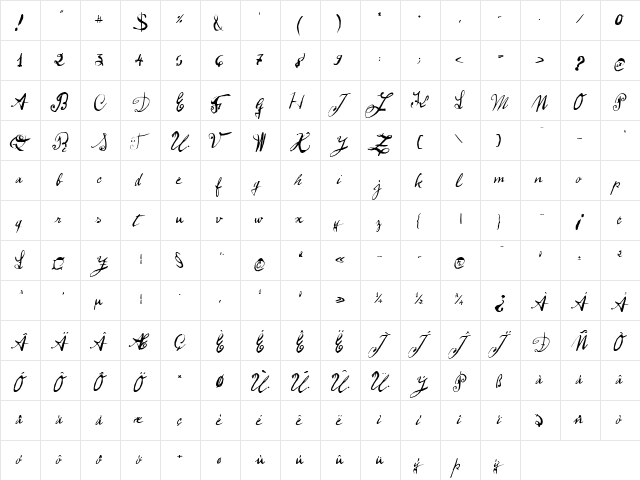
Pepe-Regular Regular
Design Context for Pepe-Regular Typeface
Pepe-Regular is a composed and adaptable typeface that performs quietly and consistently across a wide range of design contexts.